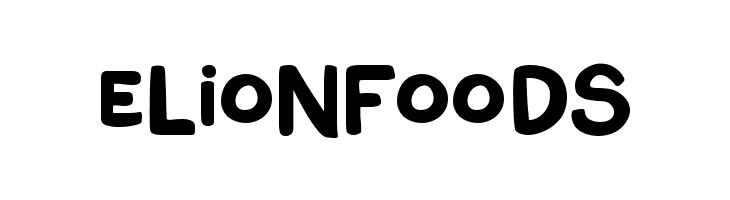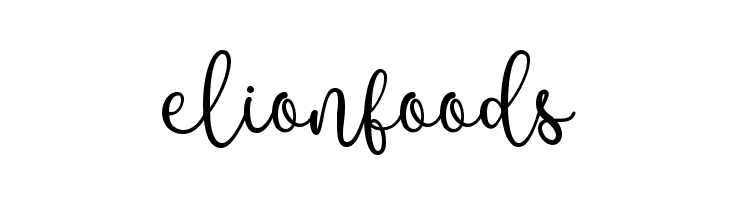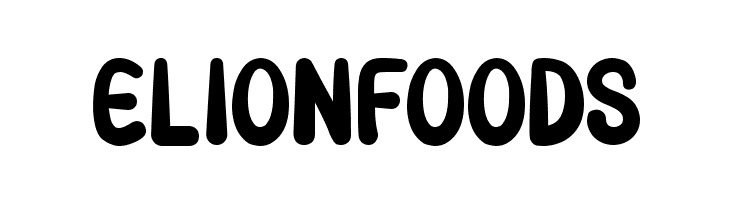
( Fonts by Ainun Jinan )
A bold, playful handwritten font with smooth, rounded edges.
( Fonts by Masa Aska Sanurumi )
A playful, bold font with rounded edges and a whimsical style.
( Fonts by Masa Aska Sanurumi )
A playful, bold, and cartoonish font with rounded strokes and a whimsical style.
( Fonts by Ainun Jinan )
A playful and elegant handwritten script font.
( Fonts by Ainun Jinan )
A bold, playful typeface with rounded, thick strokes and a unique twist.
( Fonts by DumadiStyle )
A rugged, fragmented font resembling cracked stone with jagged, angular lines.
( Fonts by Masa Aska Sanurumi )
A bold, playful font with a bubbly, cartoonish style and exaggerated curves.
( Fonts by Ainun Jinan )
A bold, retro font with rounded, bubbly letterforms and high contrast strokes.
( Fonts by Masa Aska Sanurumi )
A bold, playful font with rounded, bubble-like characters ideal for fun and informal designs.
( Fonts by Masa Aska Sanurumi )
A playful, outline bubble font with quirky 'x' marks inside the loops.